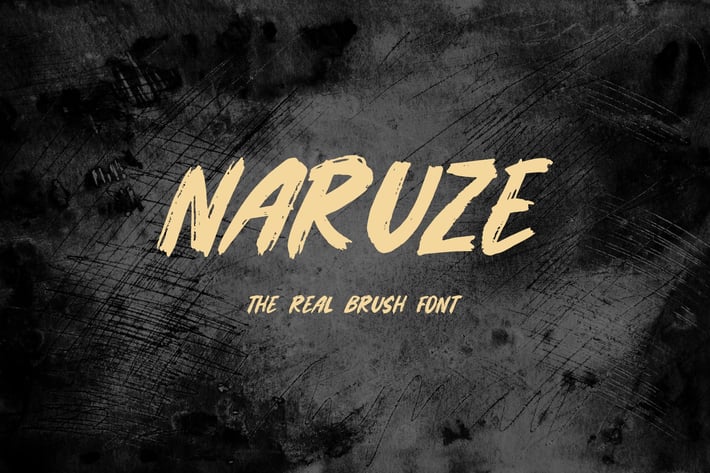
Naruze - The Real Brush Font
Introducing Naruze - The Real Brush Font. It comes with brush texture style which is perfect to make any design stand out! This font is perfect for branding, wedding invites, magazines, mugs, business cards, quotes, posters, and more.